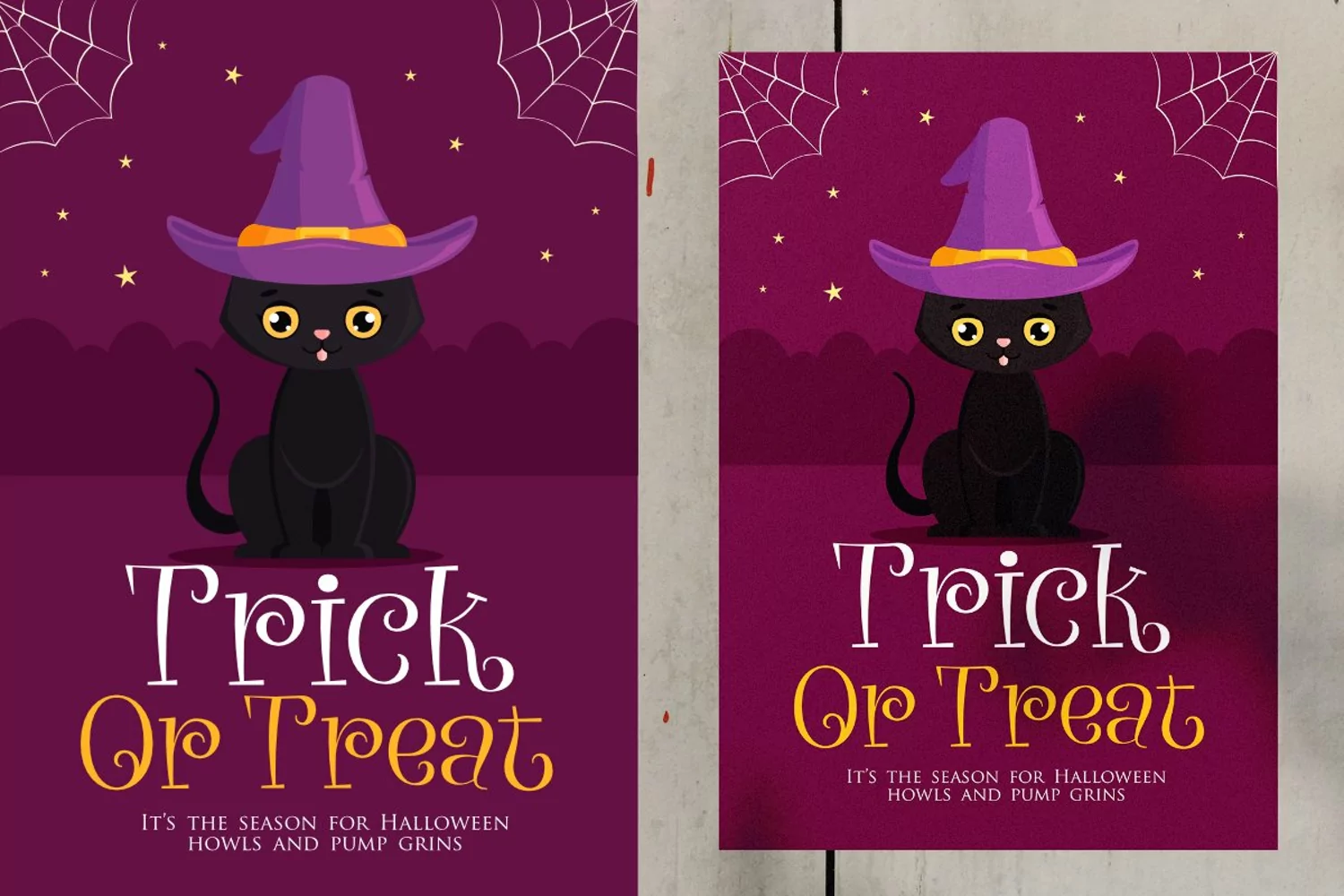
Introducing "Magical Night"
Magical Night - A Halloween Font
This fonts is ideal for crafting, branding and decorate your any project. This fonts are perfect for wedding invitation or your blog. Also with their help, you can create a logo or beautiful frame for your home. Or just use for your business, book covers, stationery, marketing, magazines and more.